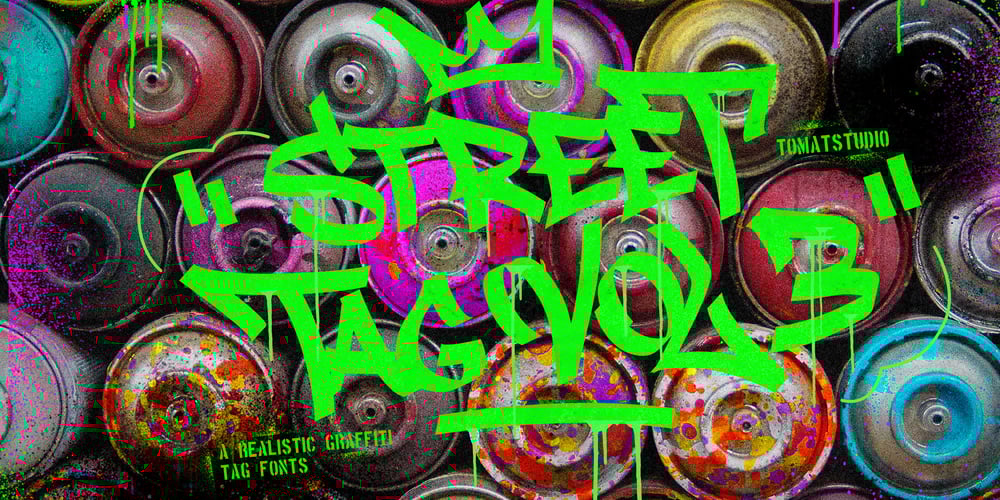
Street Tag Vol 3 Font Family was designed by Cipto Bagus Prakarso and published by Tomatstudio. Street Tag Vol 3 contains 1 styles and family package options. This is the latest version of my “street tag” series, the iconic fonts that popular and gaining many downloads! inspired from best graffiti writer around the country and my graffiti experiences on the streets.This version is much neater, I use mixed angle marker brush to create the glyphs, making it more beauty calligraphic style, more readable and more bold, Making it the coolest graffiti tag fonts in earth right now!You’ll also get the alternates, special glyphs to make it more cooler and realistic!Don’t forget to like and rate the files, thank you! ๐